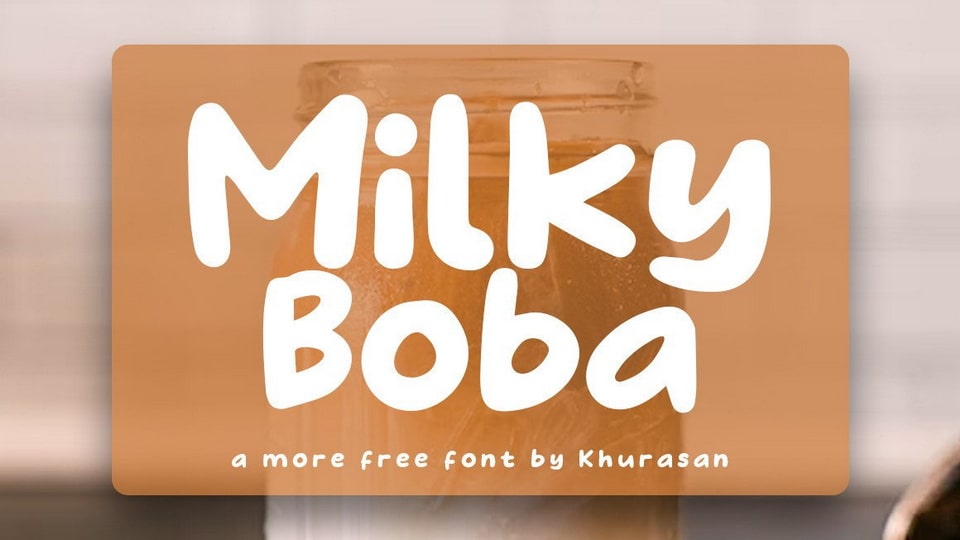
Download Milky Boba font, a funny and playful handwritten typeface. Milky Boba is perfect for posters, logos, magazines, book covers, banners, and many more.